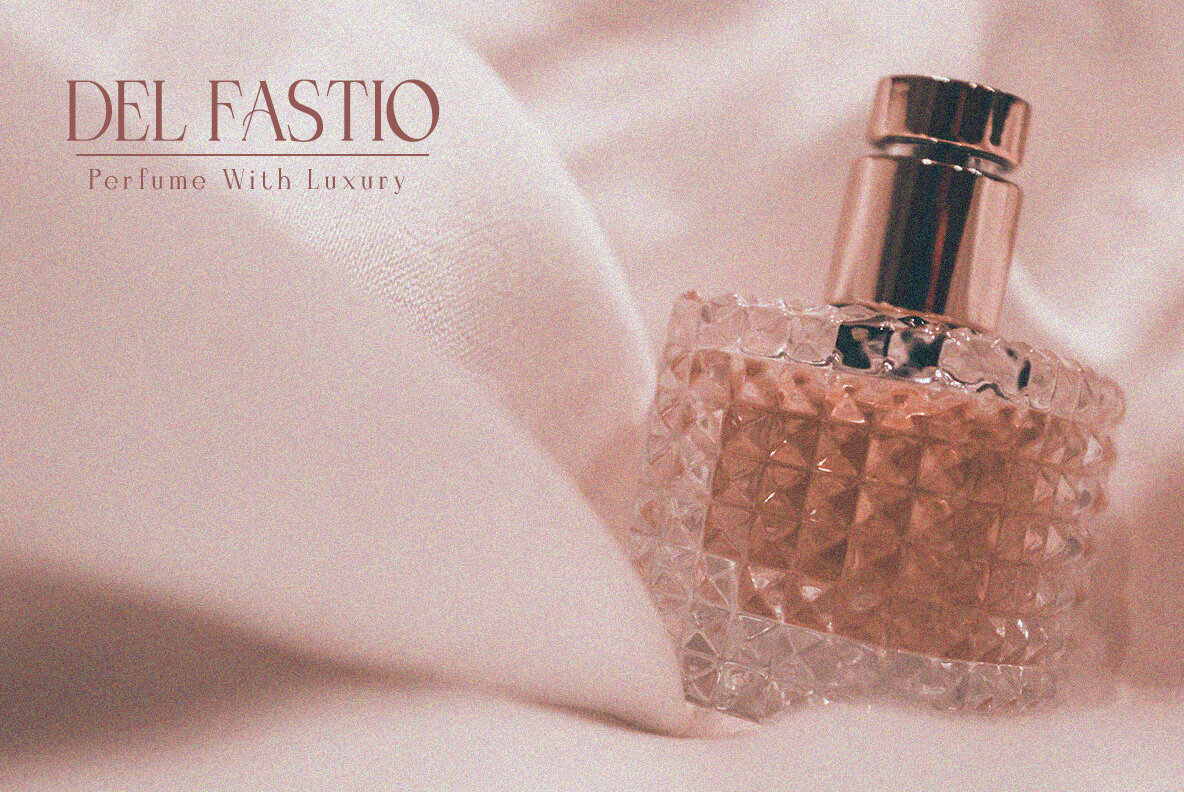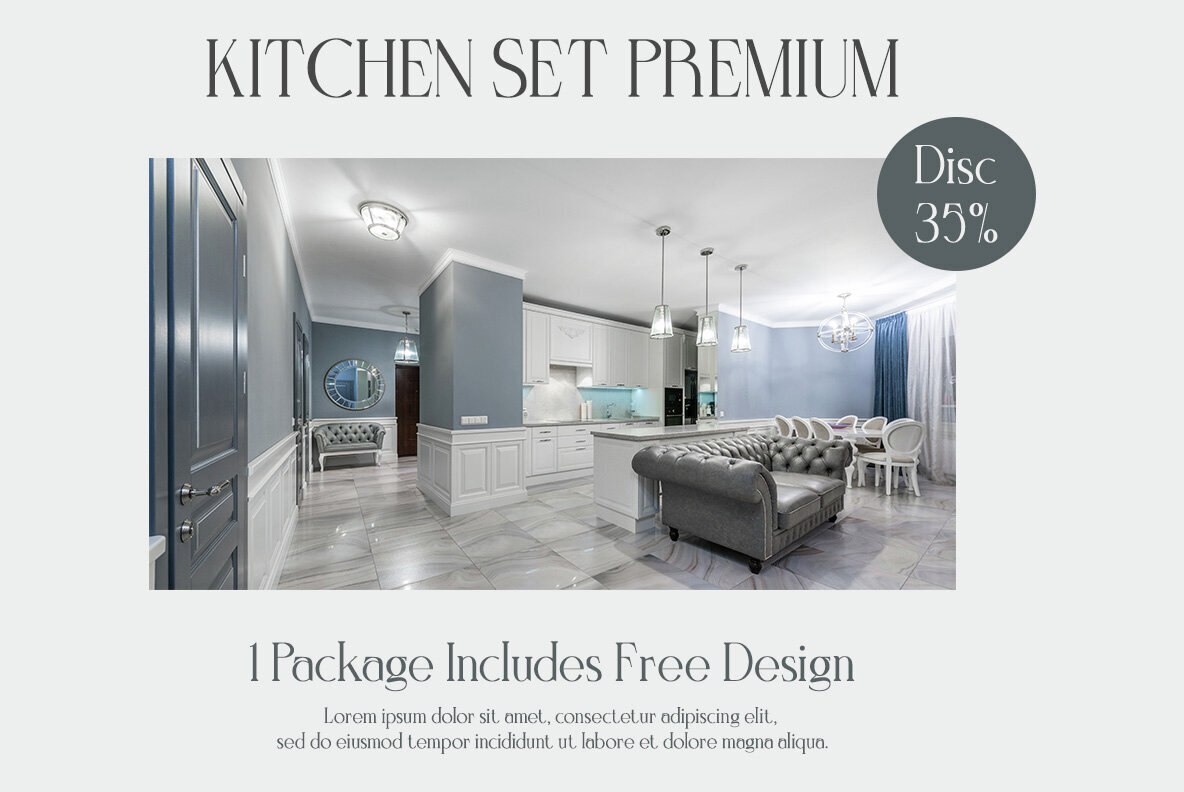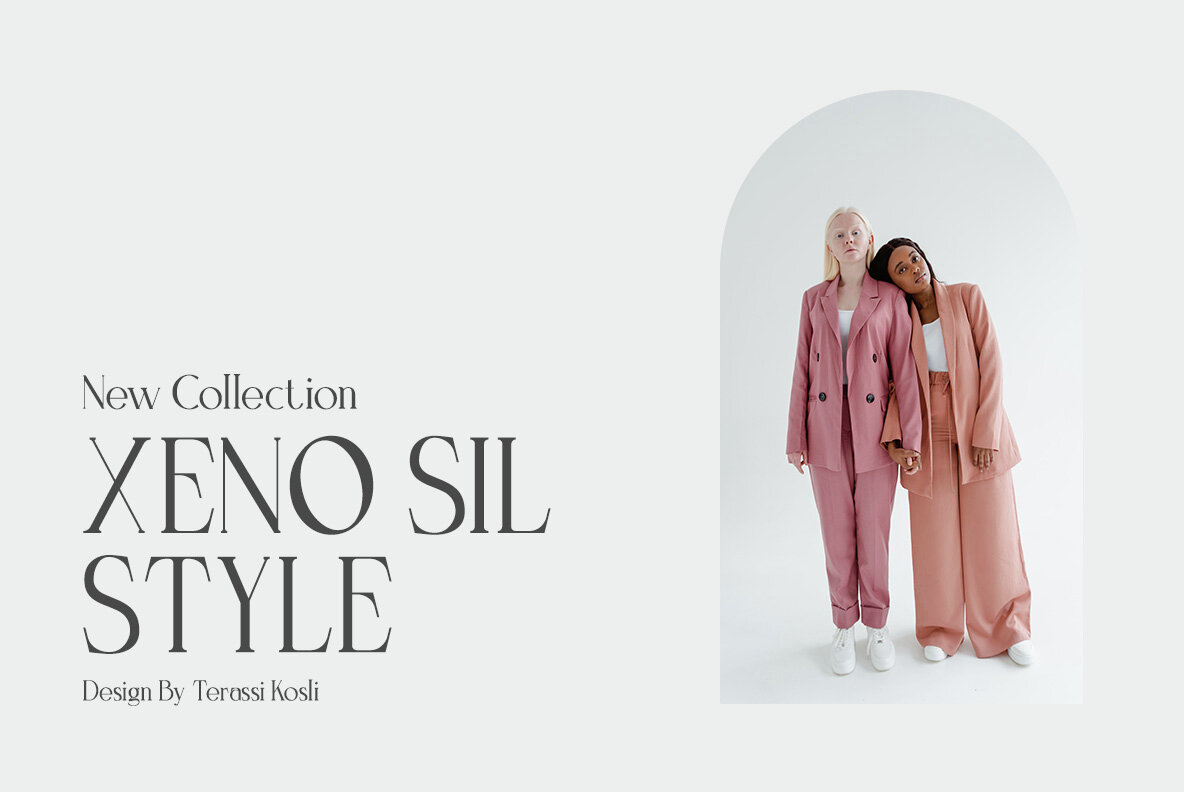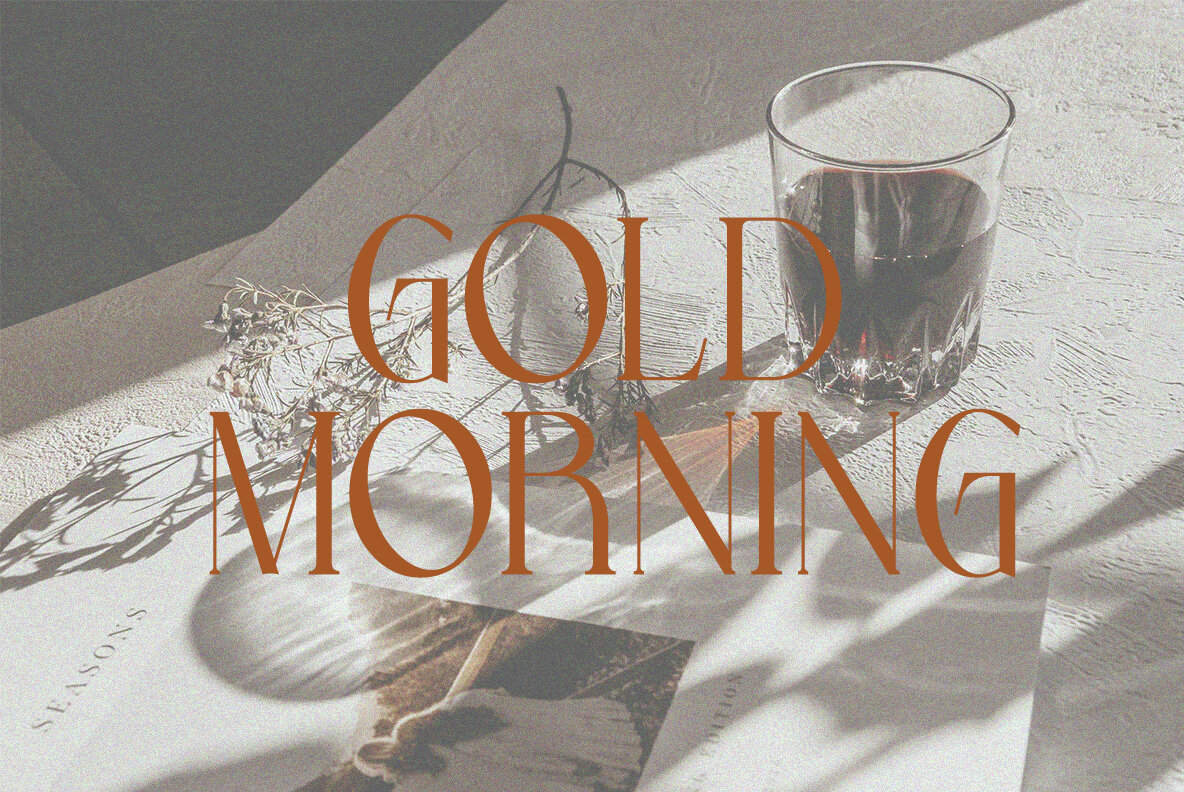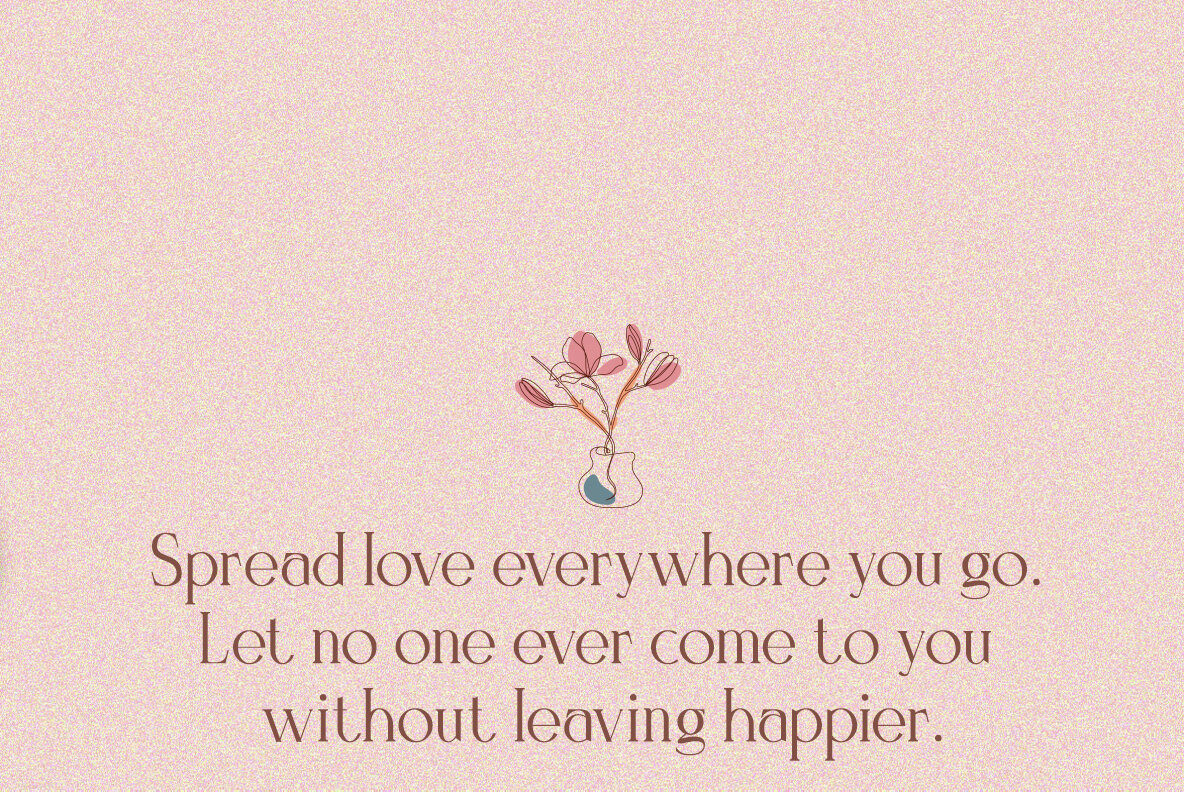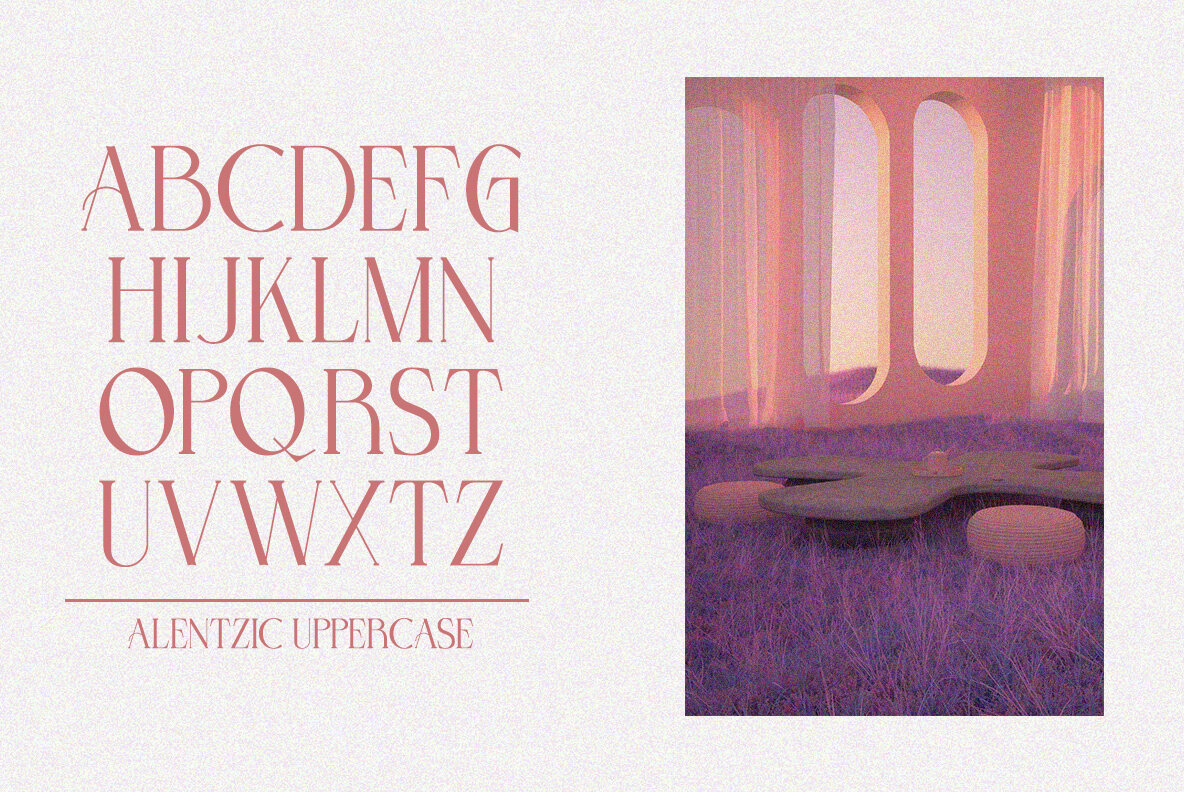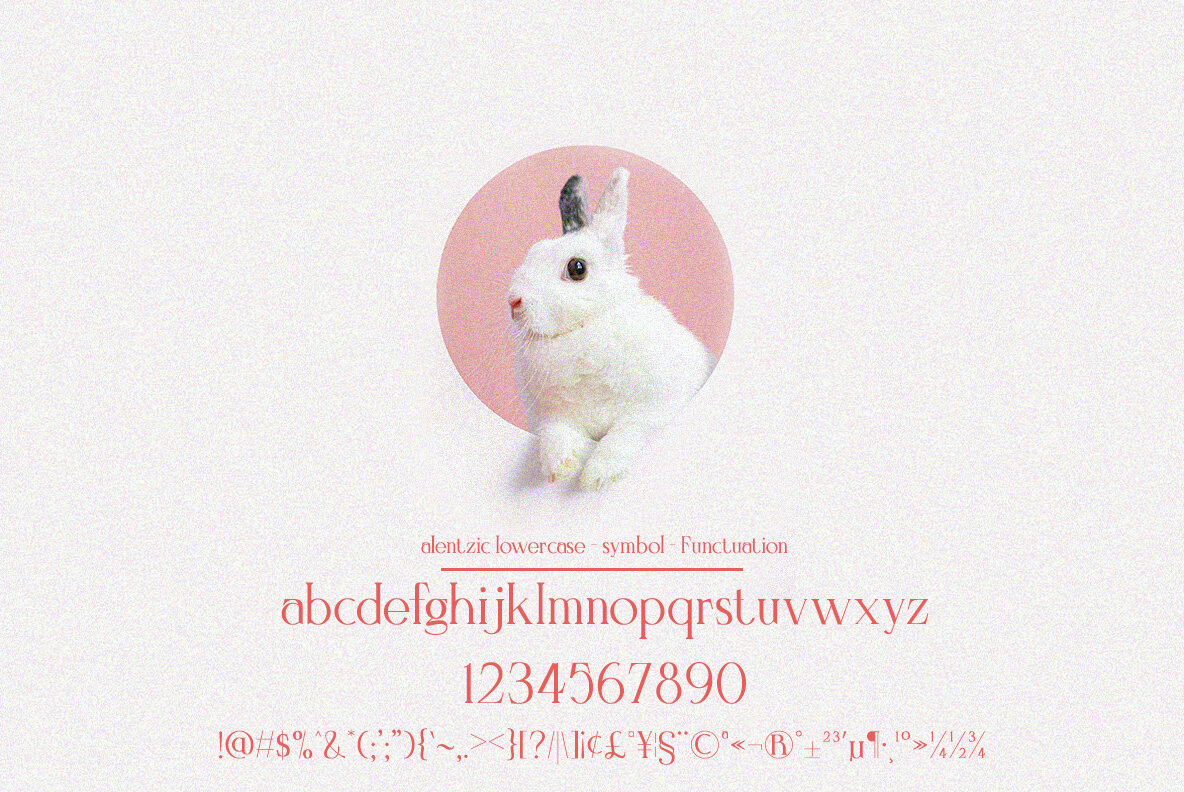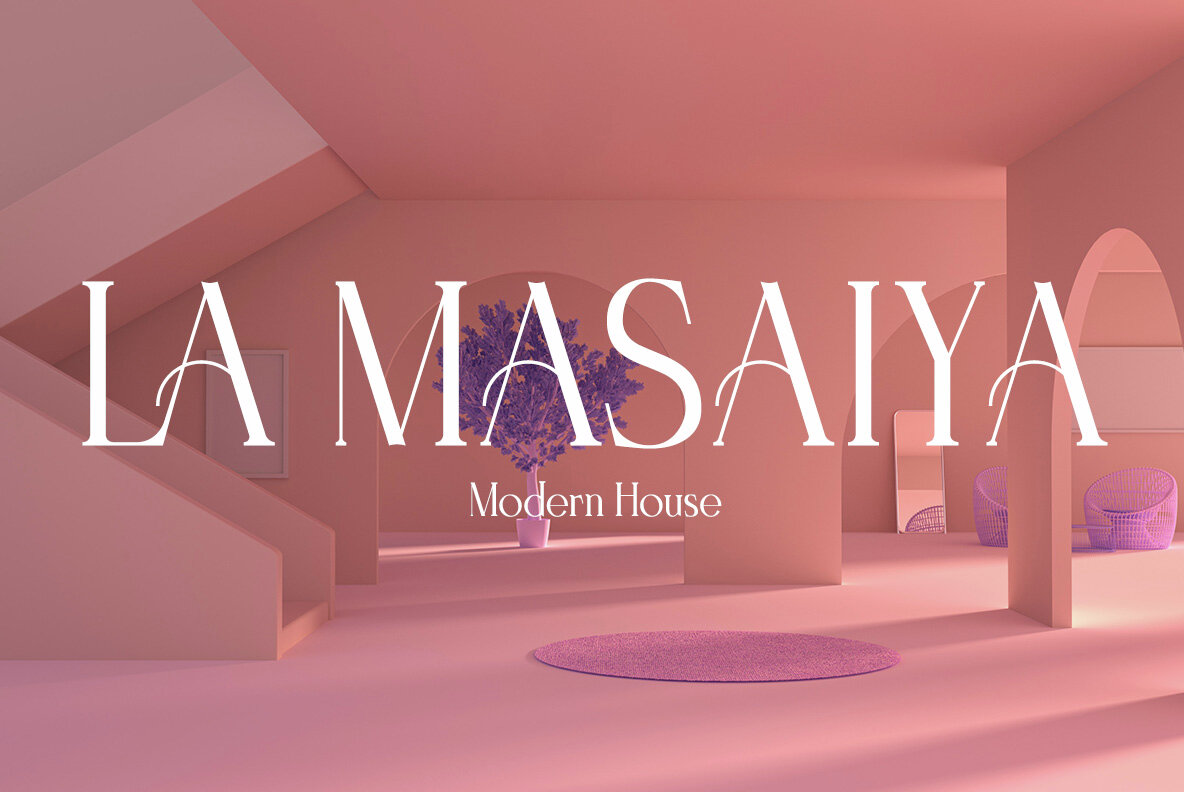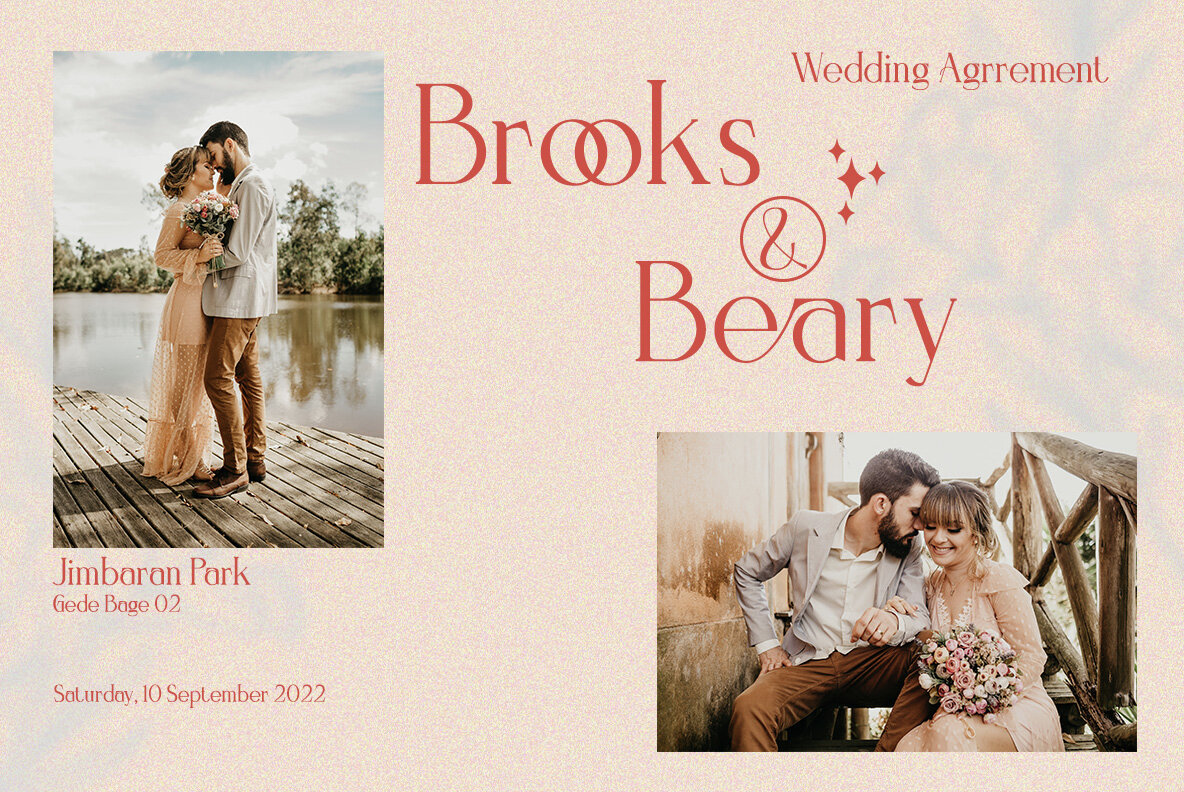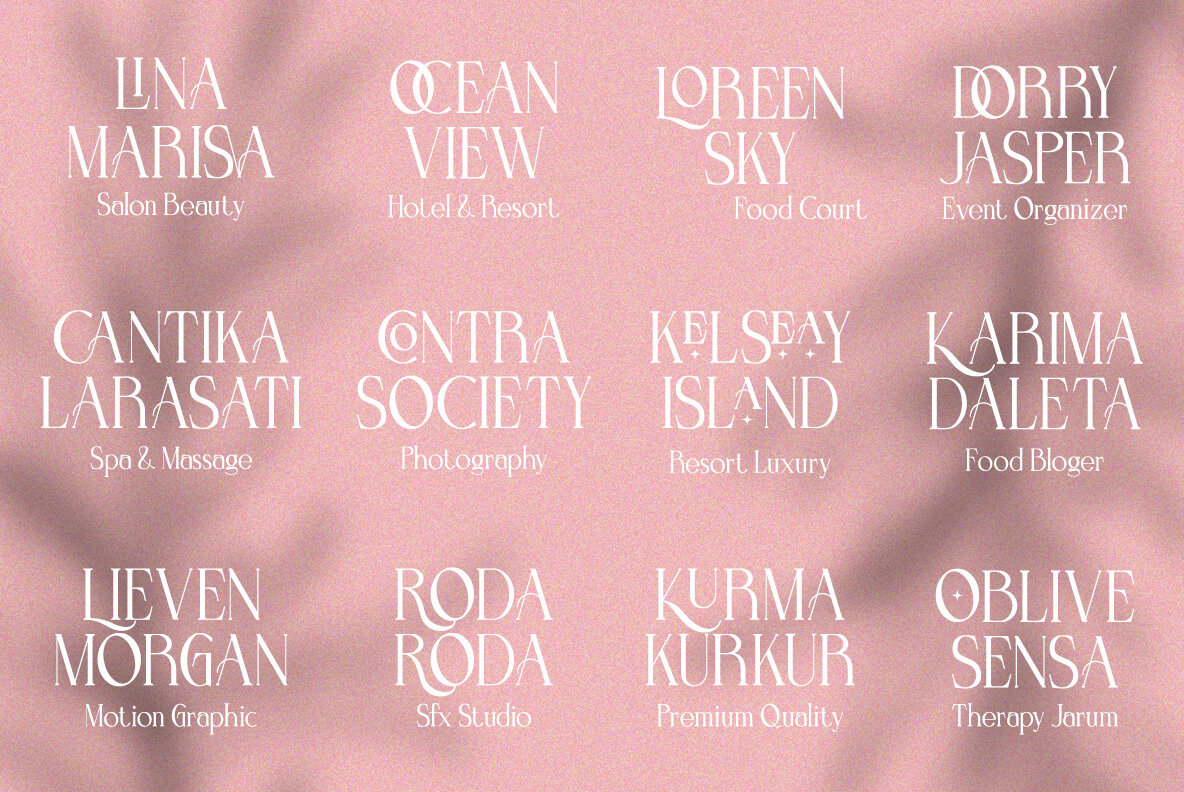
Alentzic Font
Alentzic Regular
The Alentzic font collection brings a touch of luxury and modernity to your designs, offering an array of uniquely crafted characters. Alentzic's sophisticated concept makes it ideal for effortless yet impactful design integration, enabling you to elevate your creative projects. Whether designing logos, magazine covers, or working within the realms of perfumes, skincare, or hospitality, the Alentzic font offers a wealth of ligatures and alternatives to enhance your media. Alentzic: Luxurious Modern Typeface with Unique Flair
Design Flexibility
Versatile Application